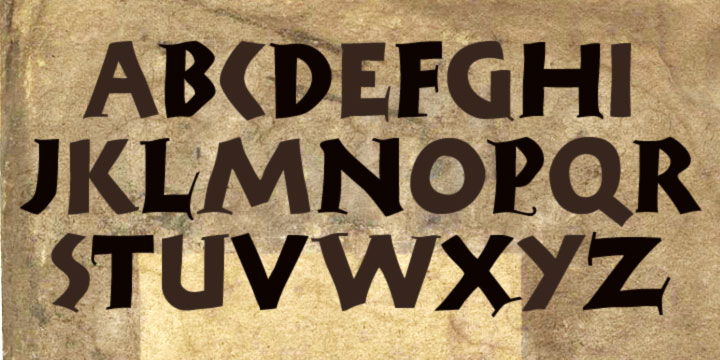
Rudolf
Rudolf, a CastleType Original, is based on calligraphy by Rudolf Koch (as shown in his Little ABC Book) which was most likely the basis for his Neuland typeface. See also Tambor, which is based on Rudolf and which is perhaps vaguely similar to Koch's Neuland. Click on chart at right to view or print all glyphs in this font.